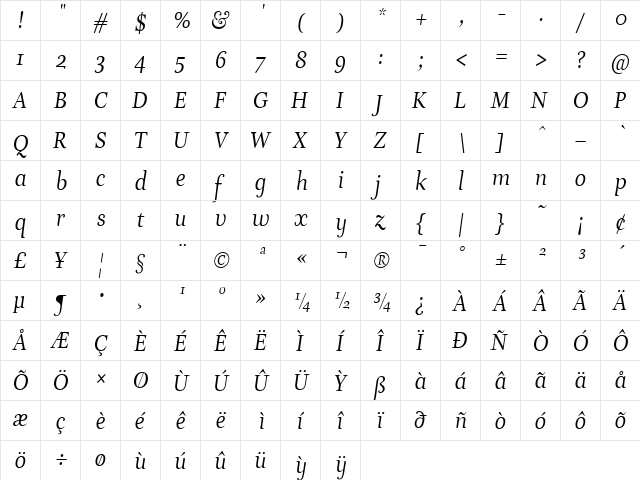
EstaItalic Regular
Design Context for EstaItalic Typeface
EstaItalic takes a measured approach to typography — its balanced proportions and neutral character make it a reliable workhorse for both digital and print work. The dynamic lean of this cut emphasises speed and emphasis in any layout.
Pro Tip: Use EstaItalic for emphasis, pull quotes, and subheadings where its slanted energy can add rhythm to the layout.